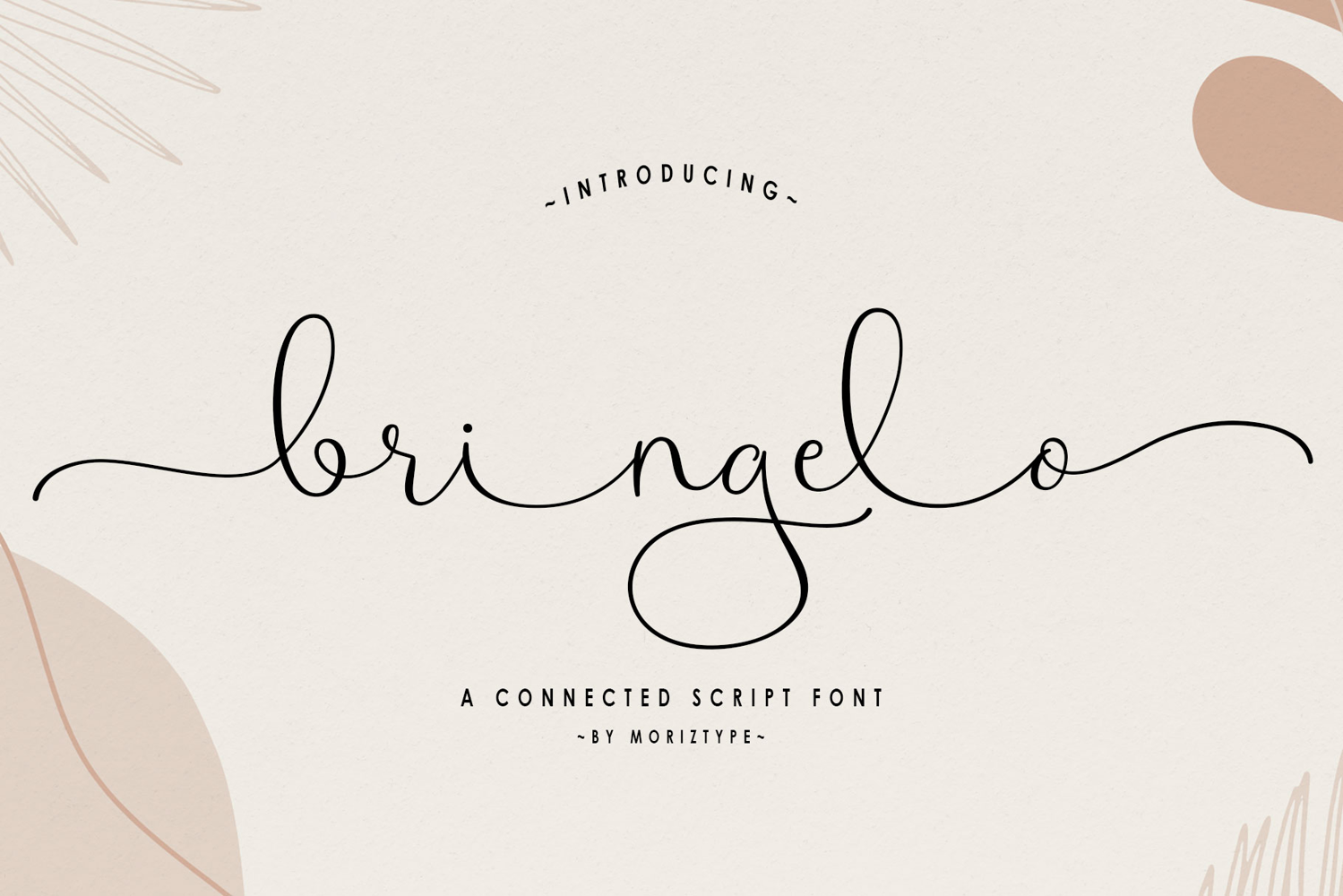
Bringelo Handwritten Font
Bringelo
Bringelo is a connected handwritten script, a modern script font with a soft, romantic, and elegant handwriting touch. Designed to create a warm and emotional feel, this font is perfect for designs that aim for a aesthetic, and sophisticated feel.
With its flowing letterforms and balanced character, Bringelo Script creates a natural yet professional feel, making it a perfect choice for a variety of creative design needs.